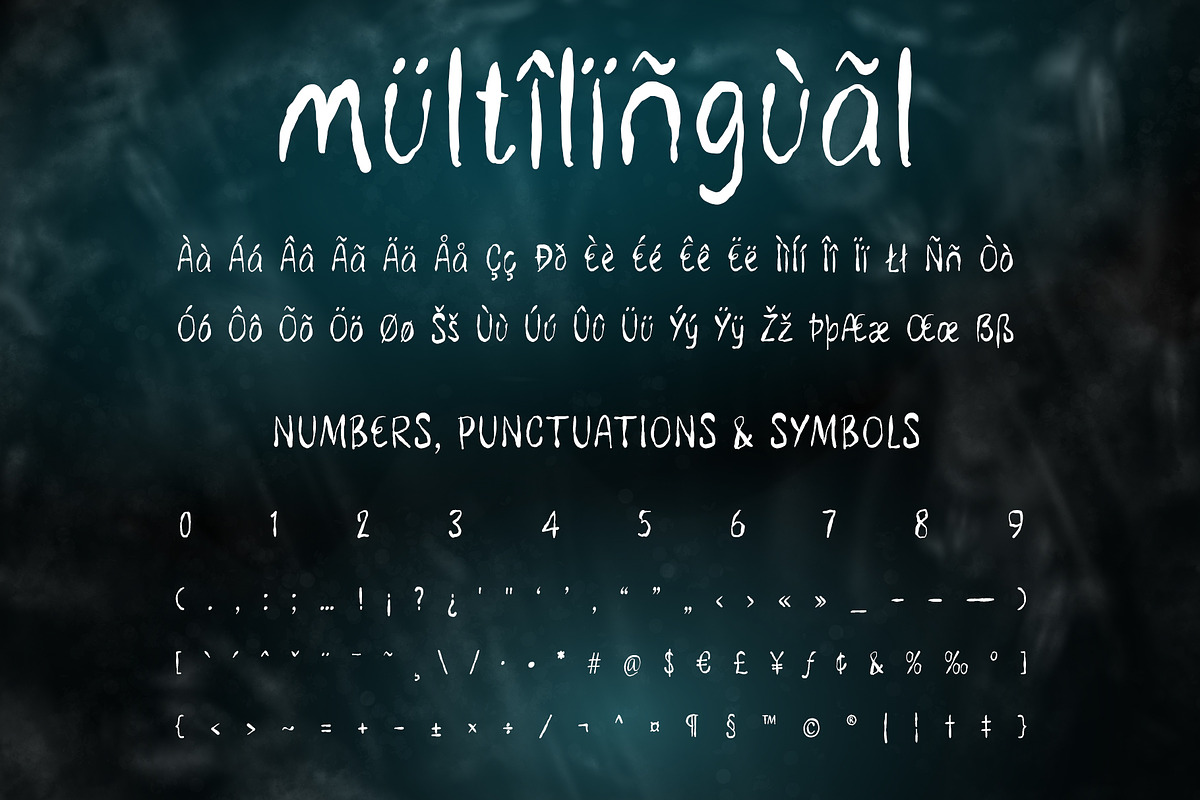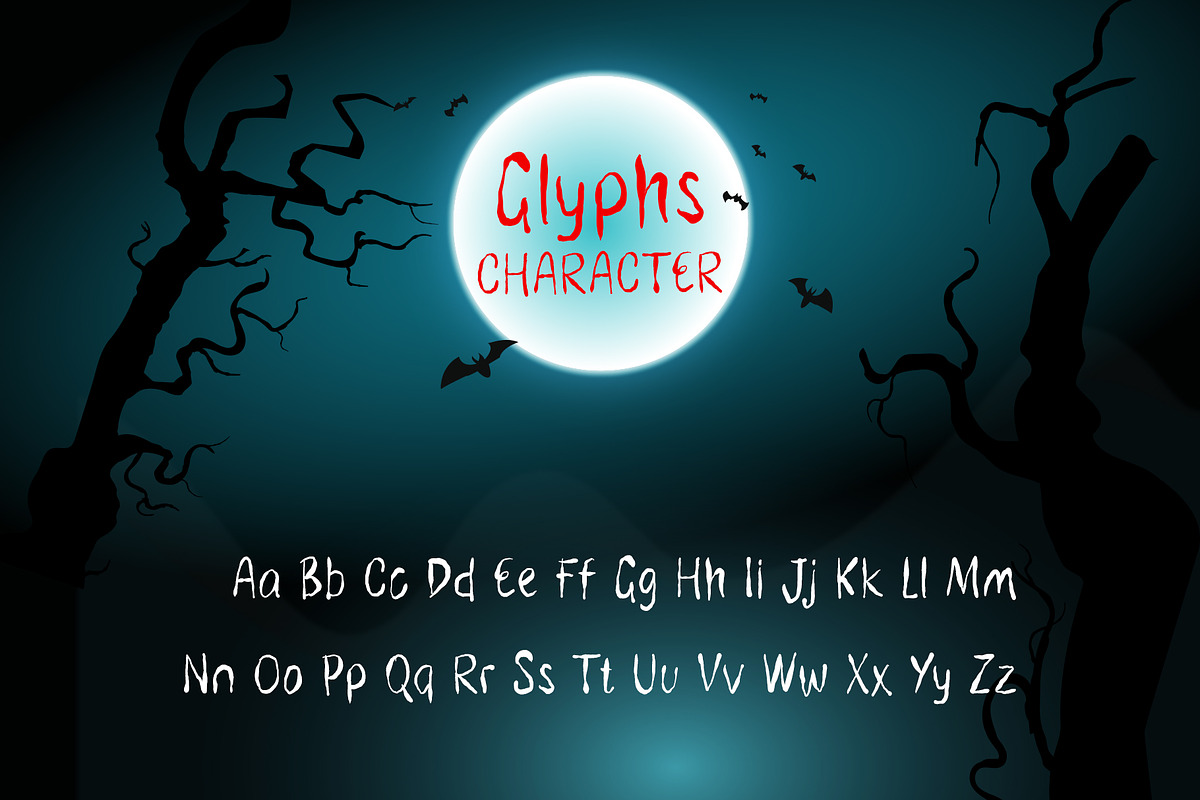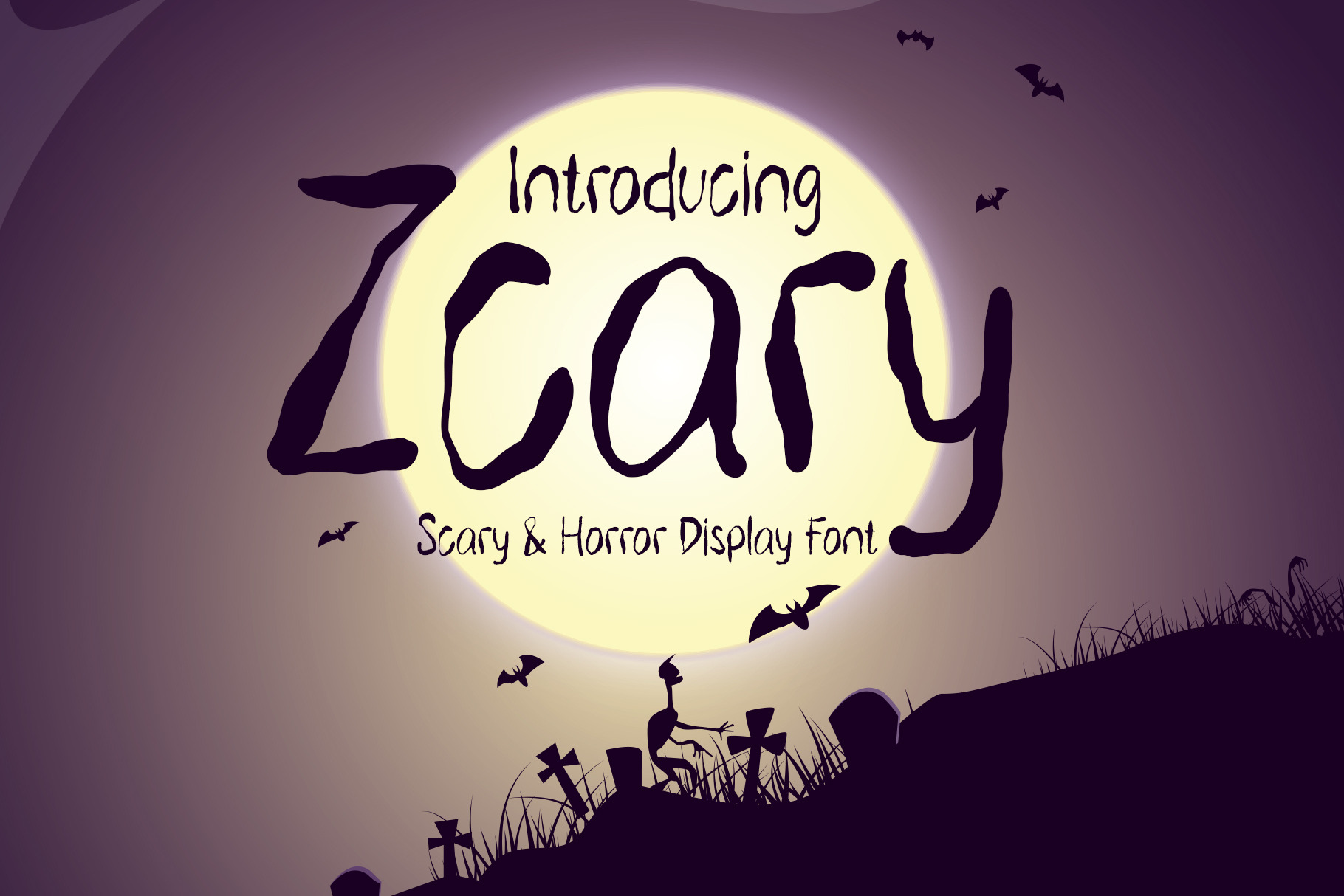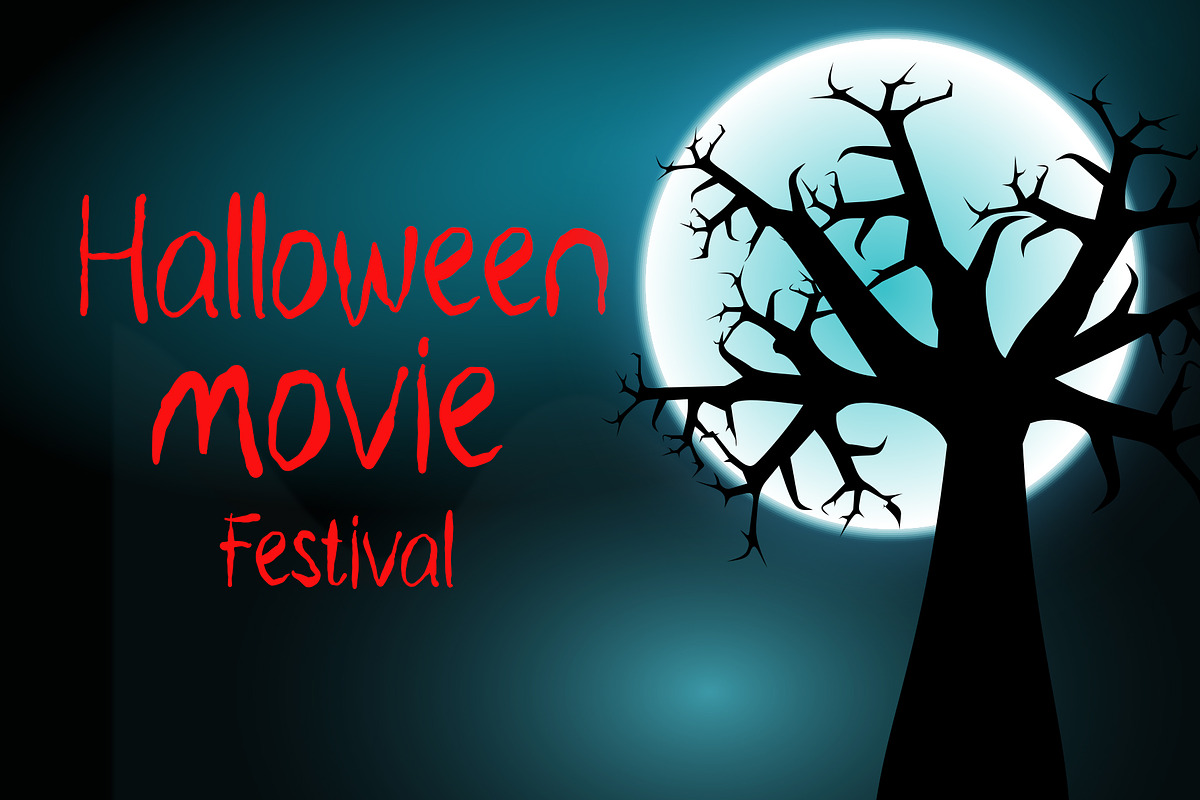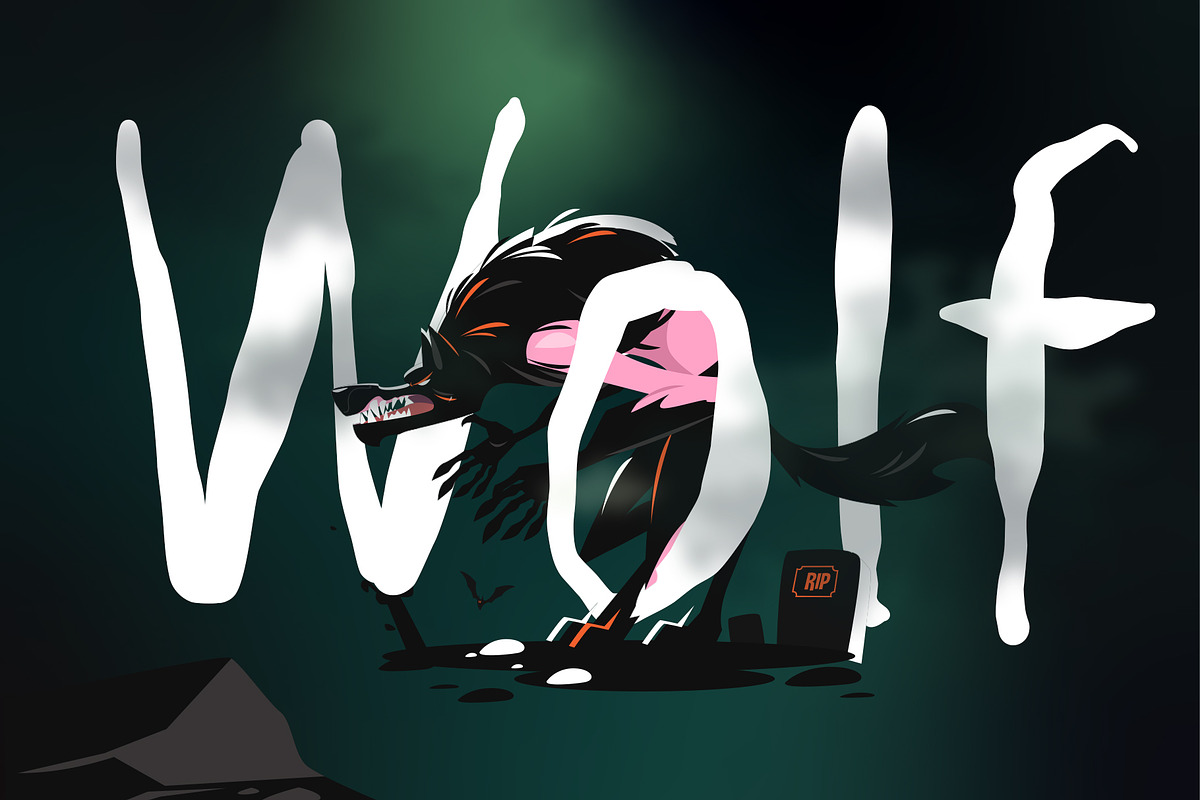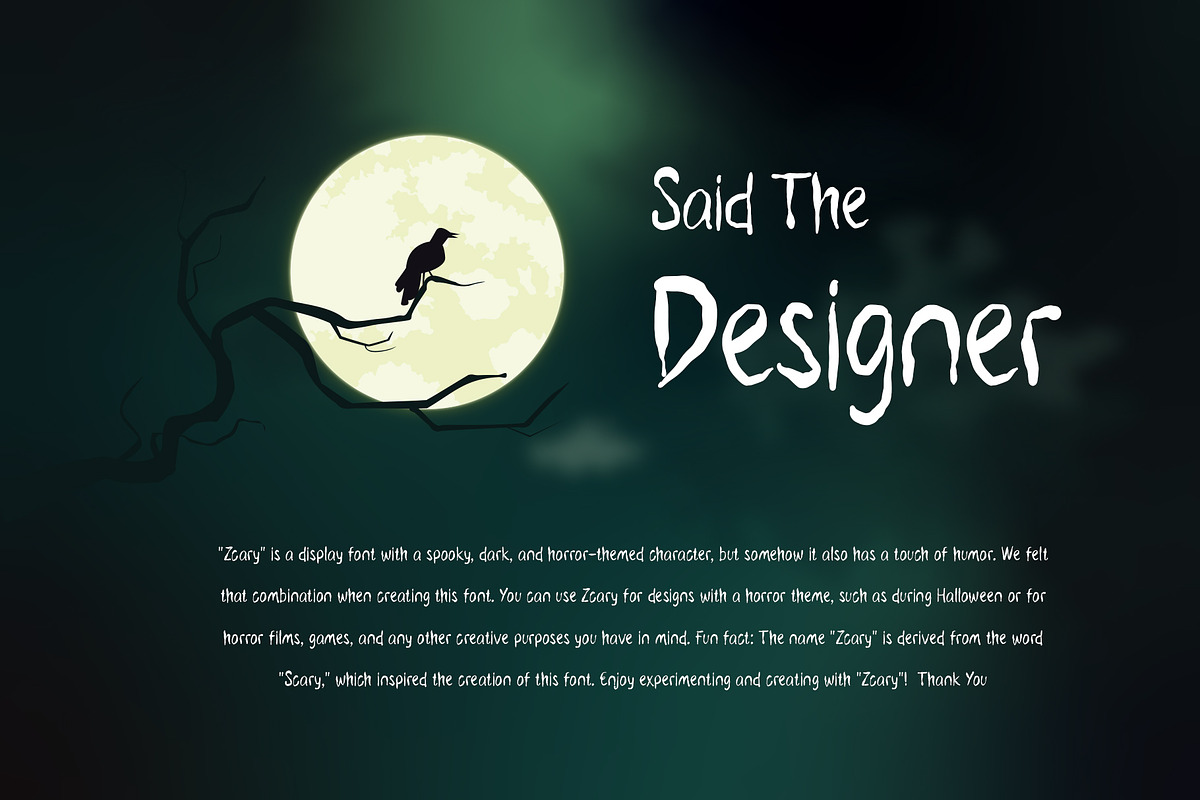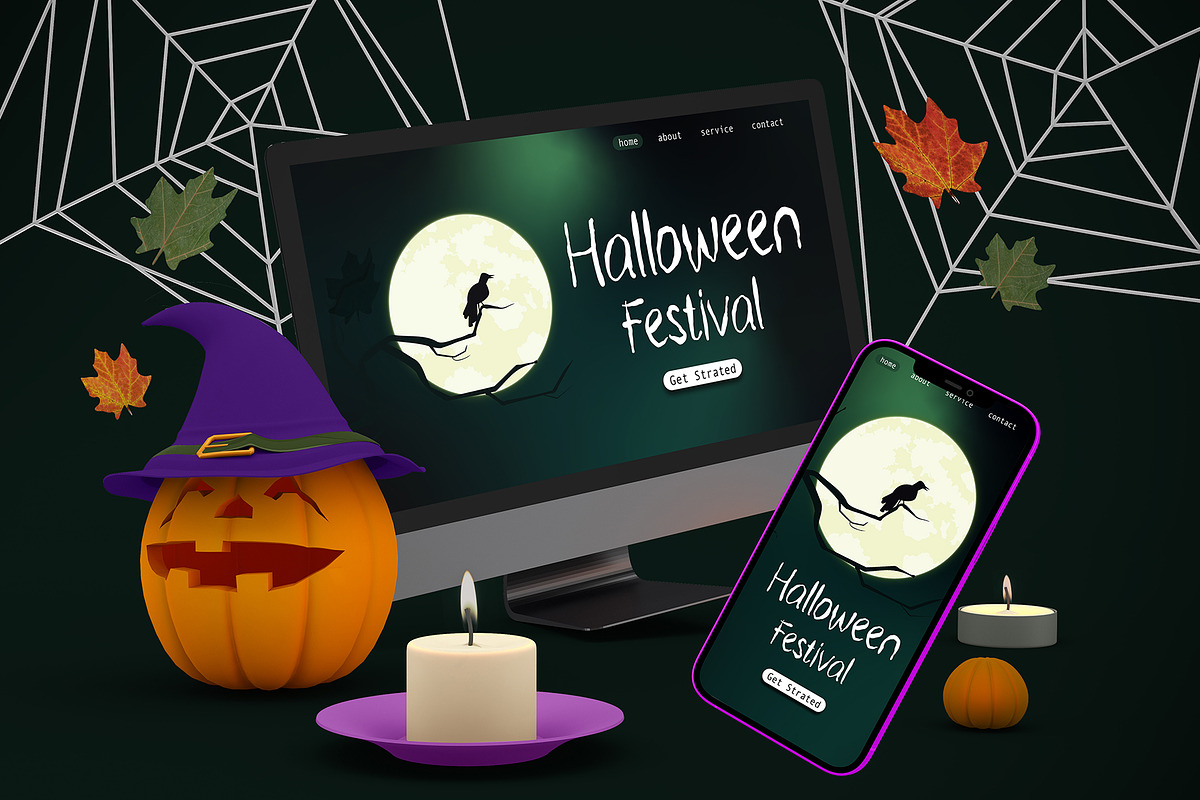
Zcary A Scary & Horror Display Font
Zcary is a horror-themed font in a cartoon style. Designed to combine horror elements with a playful and cartoonish touch, this font is perfect for projects that blend horror and cartoon styles, such as horror comic books, animated horror film posters, or designs aiming to create a spooky atmosphere with a humorous twist.
The history behind the creation of this font stems from our interest in the horror genre within a cartoon style. We were inspired by creepy characters often seen in cartoons, animated horror films, and scary stories presented with a touch of humor. We aimed to create a font that could merge horror and cartoon elements, resulting in a unique and captivating look.
Zcary features letter designs that reflect a horror ambiance with a cartoon twist. Each letter and character in this font carries eerie details and sharp strokes, while maintaining a cute and entertaining cartoon style. The font evokes a spooky impression with a touch of humor that brings laughter.
The Zcary font is highly suitable for design projects that seek to combine horror elements with a cartoon style. With this font, you can create a unique and captivating look for comic books, animated film posters, merchandise designs, or other projects aiming to evoke a spooky atmosphere with a humorous touch. The Zcary font will help you create a horror ambiance in a delightful and laughter-invoking cartoon style.